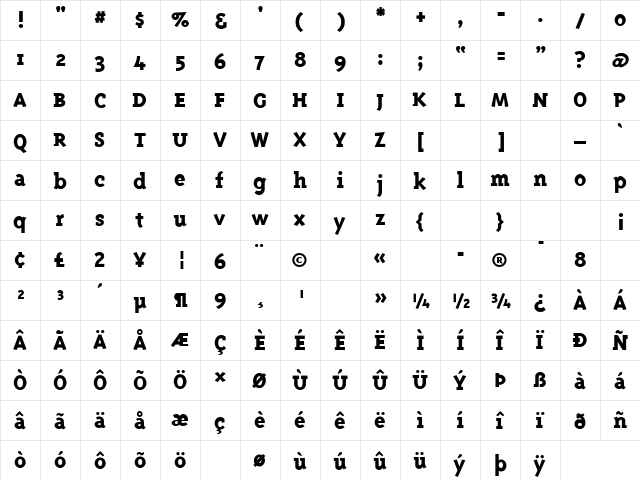
Triplex Serif Extra Bold Regular
Design Context for Triplex Serif Extra Bold Typeface
Triplex Serif Extra Bold carries the refined structure of traditional serif typography, with bracketed terminals and considered proportions that communicate credibility and craft. The heavy weight commands attention and anchors typographic hierarchies.
Pro Tip: Set Triplex Serif Extra Bold with slightly loose tracking in headlines to let each letterform's detail read clearly at display sizes.